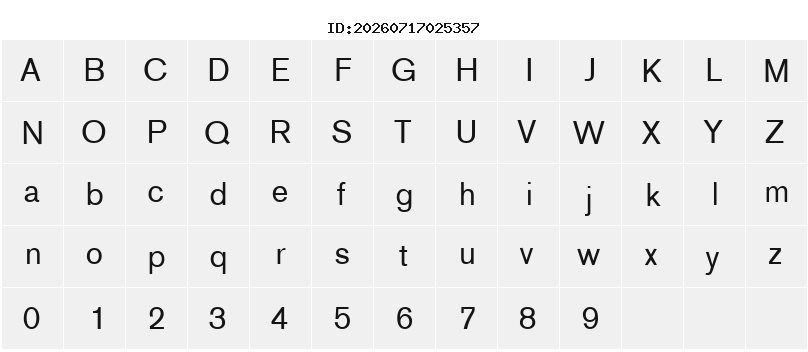
A750-Sans Preview
• Font Name: A750-Sans
• Font ID: SoftMaker Software GmbH A750-Sans-Regular
• Full Font Name: A750-Sans-Regular
• Designer: SoftMaker Software GmbH
• Manufacturer: SoftMaker Software GmbH
About A750-Sans.ttf
A750-Sans.ttf is a modern, elegant sans-serif font designed for ultimate readability and visual harmony. Perfect for branding, headlines, web design, and print materials.